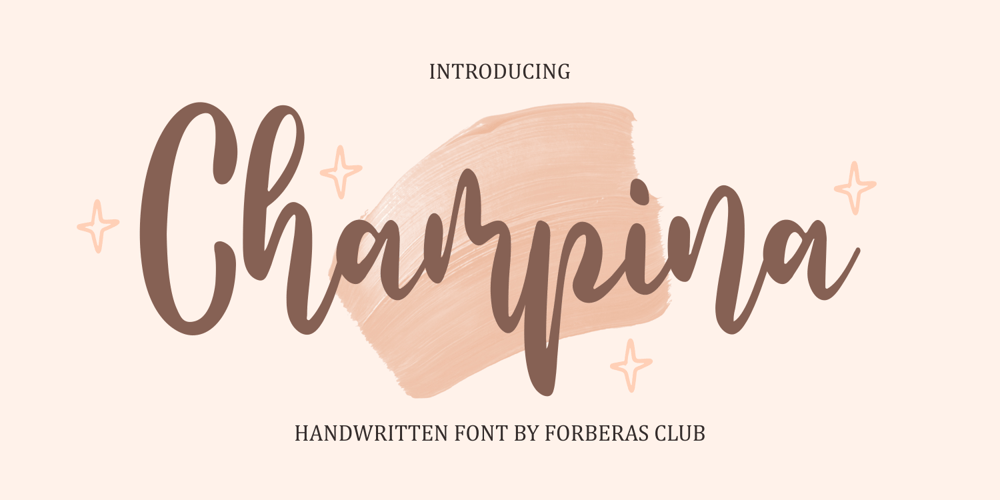
Champina Font Family was designed by ANGGI HERMAWAN and published by Forberas Club. Champina contains 1 styles and family package options. Champina is handwritten font, Recommended uses for simple write, wall type, decoration, and poster. Free for personal use.